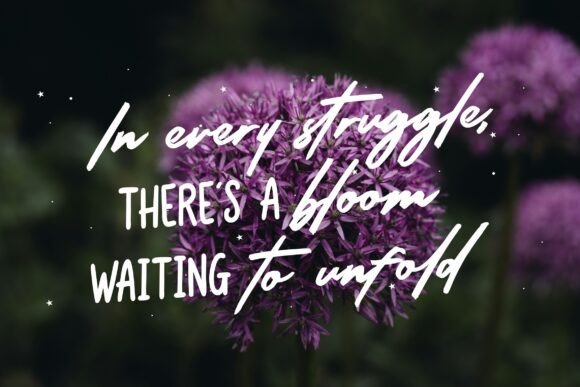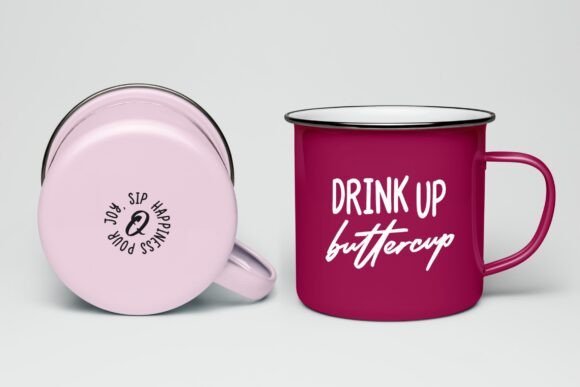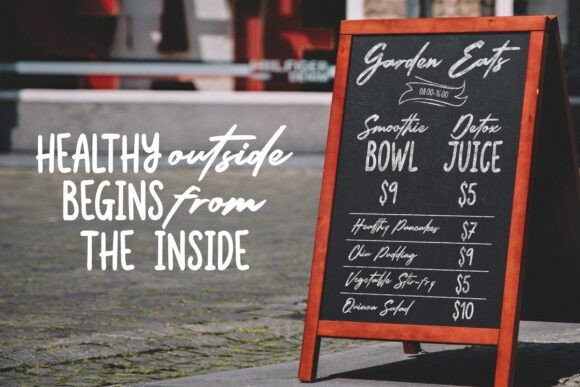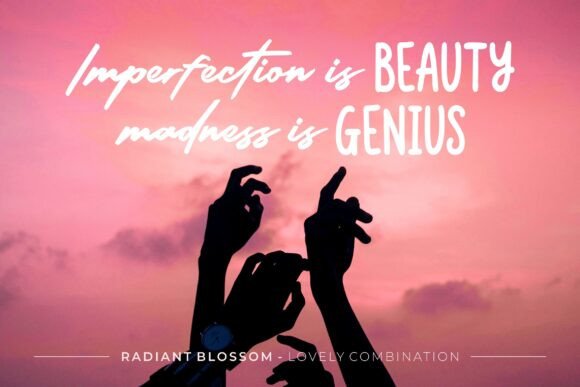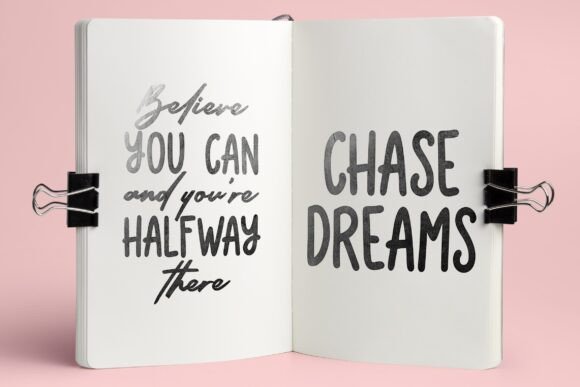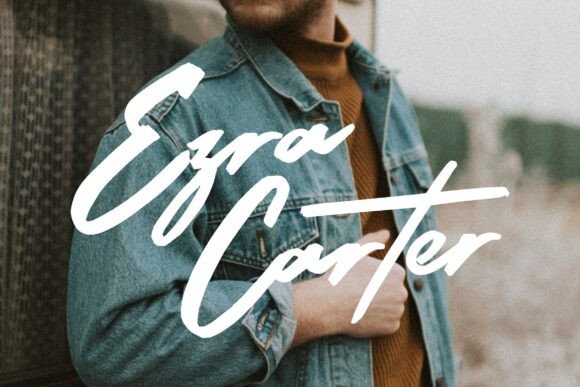
Introduction to Radiant Blossom Font Font
Fonts play a crucial role in design, and the Radiant Blossom Font font is a typeface that brings both character and versatility to any project. Whether you’re working on a branding project, a website, or a print design, the Radiant Blossom Font font offers a unique style that can elevate your work.
Radiant Blossom is a delightful blend of lovely script and playful sans, creating a perfect harmony between elegance and fun.
The script brings a charming, romantic flair, while the sans elements add a light-hearted, modern vibe This versatile font is ideal for invitations, branding, packaging, and social media designs that need both beauty and a touch of joy.
Key Features of Radiant Blossom Font Font
Why Choose Radiant Blossom Font Font?
The Radiant Blossom Font font is more than just a typeface – it’s a design tool that helps you communicate your message with style and clarity. Its unique character set and versatile design make it suitable for a wide range of applications, from elegant invitations to bold headlines.
With its carefully crafted letterforms and balanced proportions, the Radiant Blossom Font font ensures readability and visual appeal across all mediums.
What makes Radiant Blossom Font font special?
The Radiant Blossom Font font stands out with its unique design, exceptional readability, and versatility across various design applications.